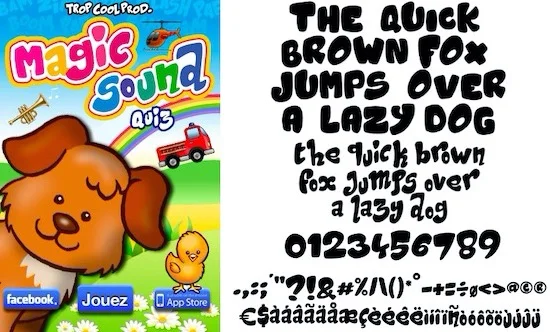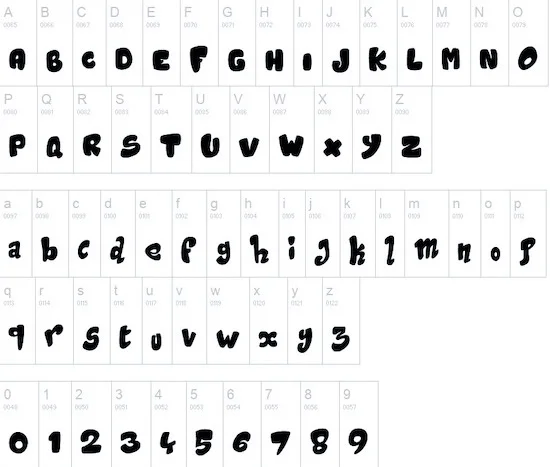
The Bluey Font is as cheerful as the show itself, bubbly, bold, and fun. Inspired by the official Bluey logo, it’s a hit for kids' birthday invites, games, and anything that needs a friendly, cartoon-like feel.
Inspired by: Bluey animated series (Australia)
Designer: Joe Brumm (Australia)
Font Style: Rounded, bubbly, playful sans-serif
Creator: Fan-made versions available (not officially released)
Soft, rounded letters that mimic handwriting
All-uppercase or mixed-case depending on version
Bold enough for titles, signs, and kids' games
Often includes cartoonish elements or outlines
Use Bluey Font for party invitations, learning tools, or YouTube thumbnails. Keep it playful by pairing with chunky sans-serifs or handwritten fonts.